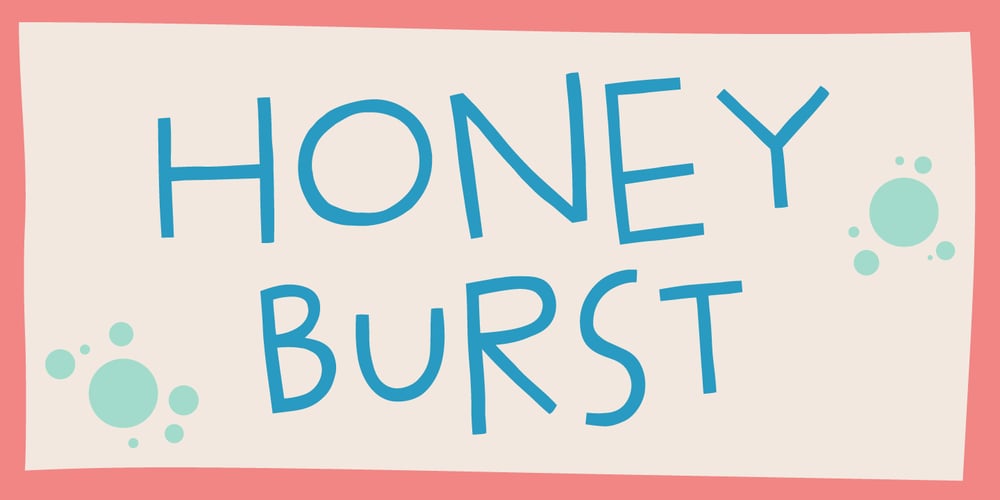
Honey Burst
Honey Burst font
Honey Burst Font Family was designed by Jakob Fischer and published by PizzaDude.dk. Honey Burst contains 4 styles and family package options. I love honey – as a dessert or just as a quick snack. I didn’t really like it as a kid, but I guess that is just a result of people changes taste as time goes.I also love letters and notes – and that I also loved as a kid! And the Honey Burst font is a tribute to people to likes to take notes, and those who likes their letters being legible, but not focusing on height, width and position according to the other letters.I’ve added 7 slightly different versions of each letter, which leaves your text quite random and lovely organic – go ahead and type those notes! 🙂